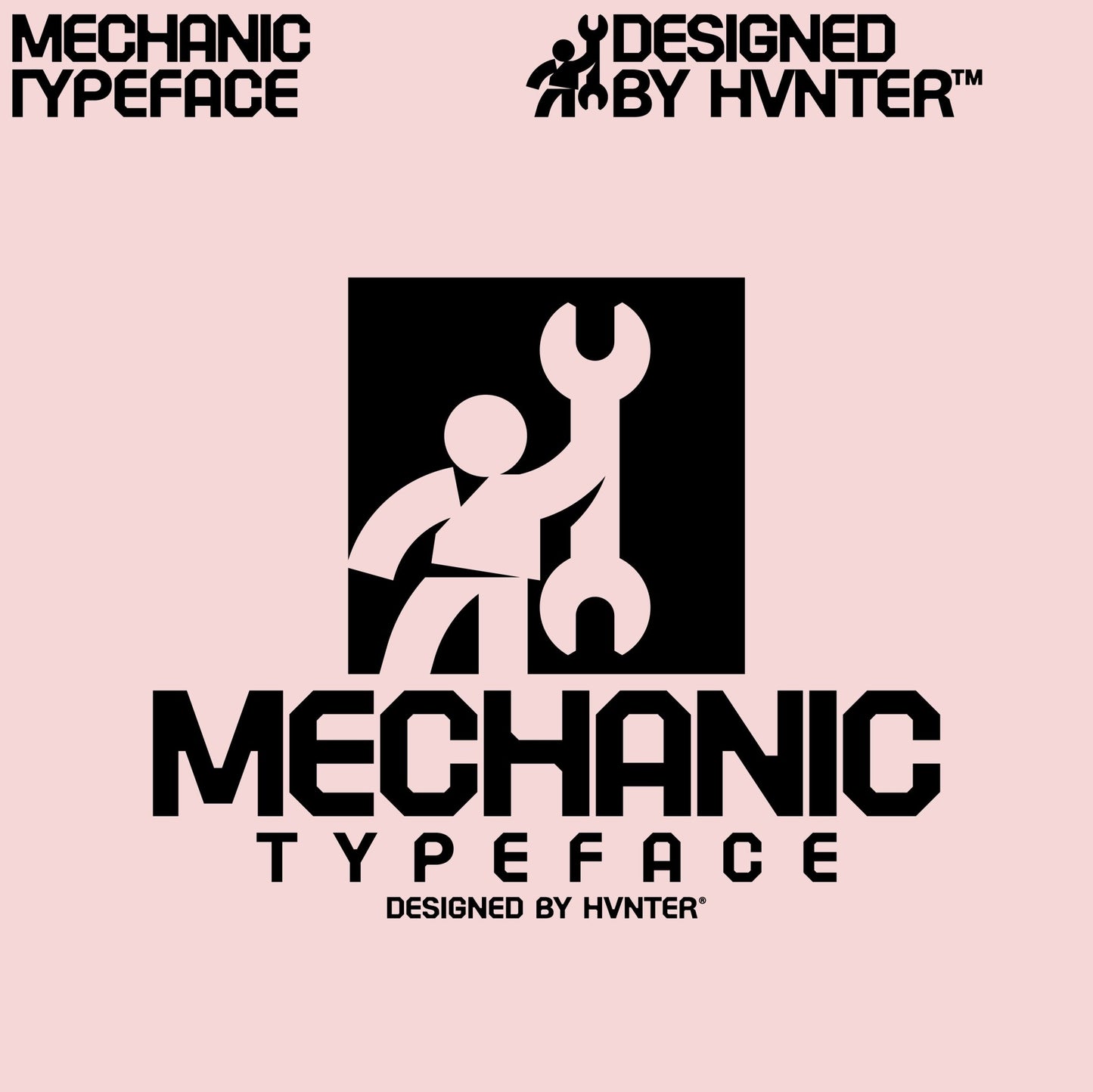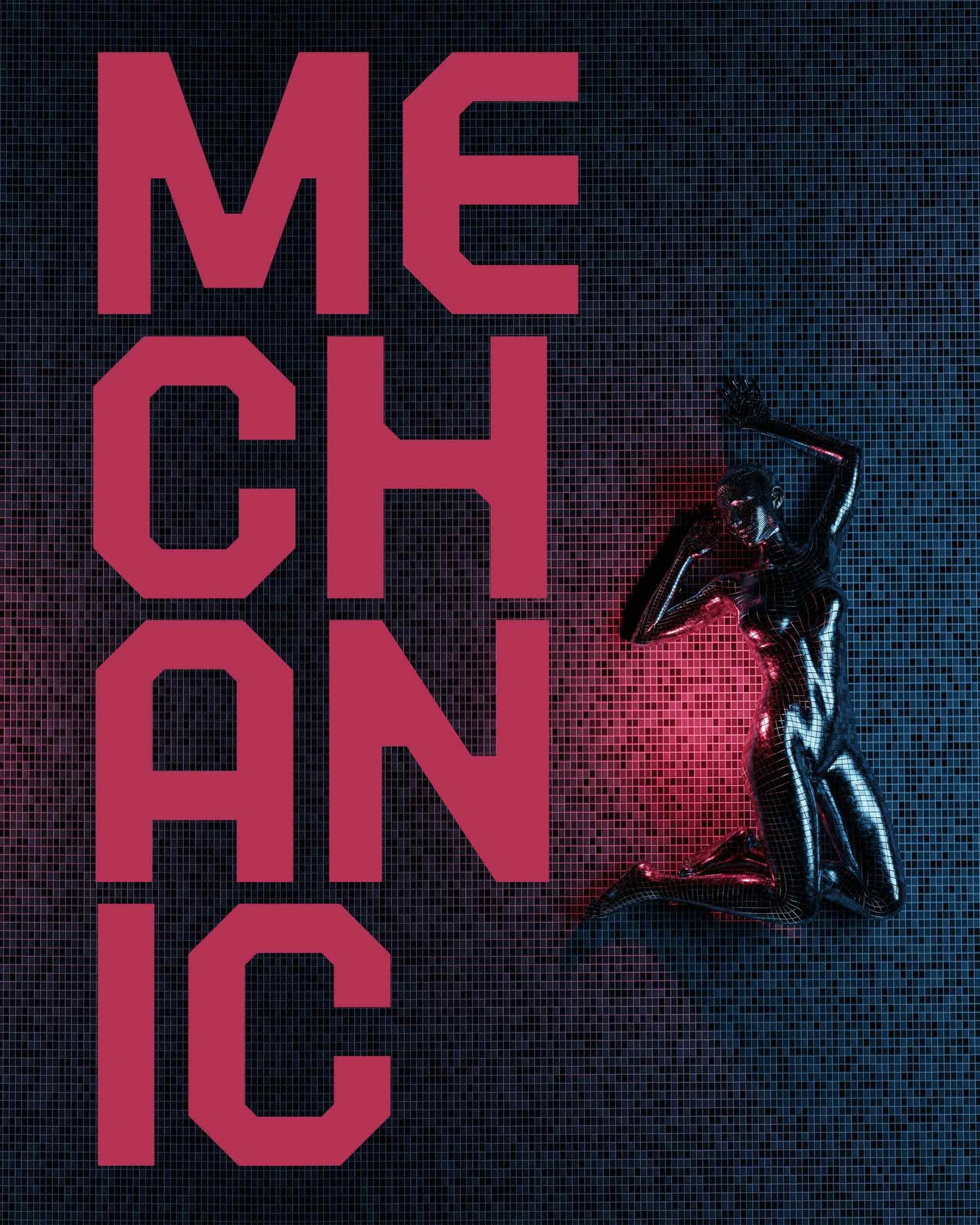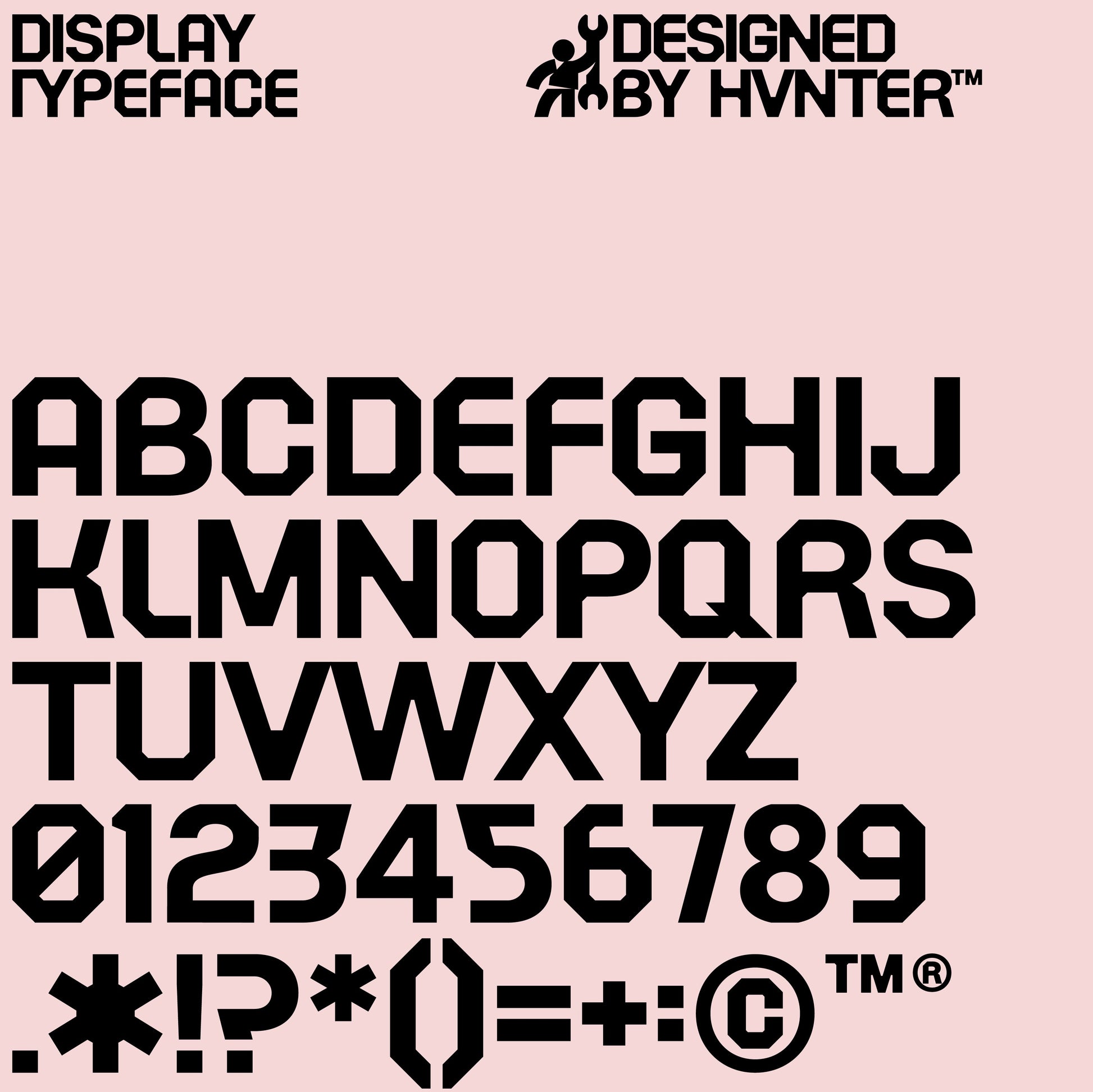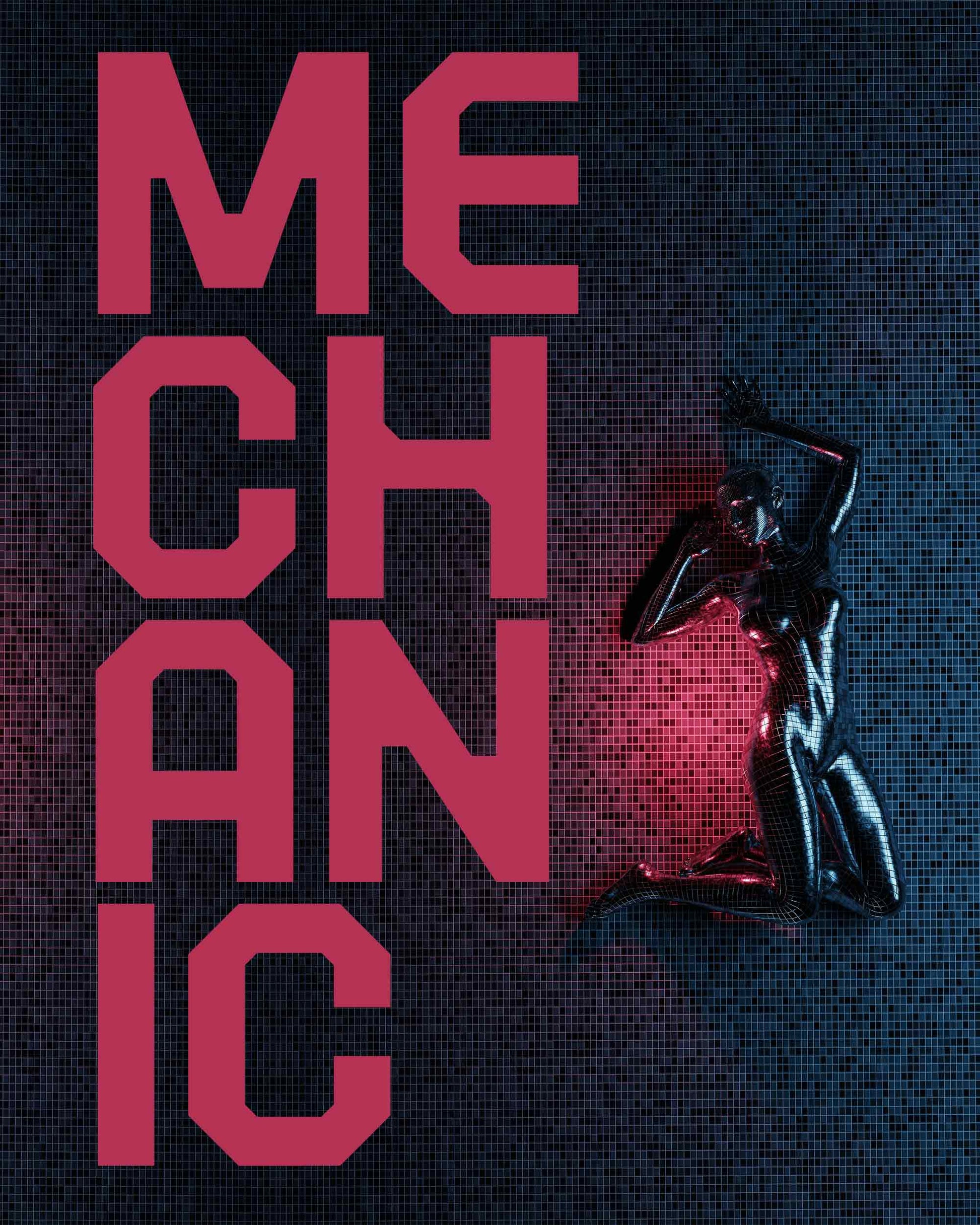
MECHANIC Typeface
MECHANIC Typeface is a welded alphabet built for heavy lifting. Designed by @hvnt.ter, this bold, industrial display font fuses utility with attitude—like a stencil left behind on a steel plate, still warm from use.
Every character is engineered: octagonal, geometric, and unapologetically sharp. MECHANIC is for the creators who build futures from blueprints and wireframes. It’s signage for machines that haven't been invented yet. It’s a warning label for thoughts that might spark fire.
This digital payload includes A–Z, 0–9, plus some punctuation and symbols—ready to deploy across posters, editorials, branding systems, and UI experiments. Whether you're drafting dystopia or oiling up the retrofuturist dream, MECHANIC gets the job done.